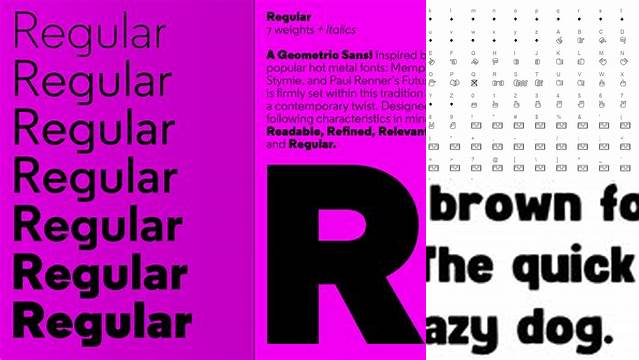
My Font Regular: Free Download Guide
Hey guys! Ever stumbled upon a font that just screams your name? Yeah, we've all been there. And when that font is the perfect My Font Regular, well, the hunt begins! But finding a reliable and safe place to snag that free download can feel like navigating a digital minefield. Fear not! This guide is your friendly map to finding My Font Regular and getting it onto your system without any headaches.
3. Identifying "My Font Regular"
Sometimes, you see a font in an image or design and think, "That's it! That's My Font Regular!" But how do you figure out what it actually is? Thankfully, there are tools for that! Websites like WhatTheFont! and Font Matcherator let you upload an image, and they'll analyze the font and suggest potential matches. Keep in mind that these tools aren't perfect, especially with stylized or heavily modified fonts, but they can give you a great starting point. You might even discover that My Font Regular is actually a slightly different font with a similar vibe. It's all part of the fun!
6. Exploring Font Alternatives
Let's say you can't find My Font Regular available for free download with the license you need. What then? Don't despair! There are tons of amazing font alternatives out there. Websites like FontPair can help you find fonts that pair well with your desired style. You might discover a font that's even better than My Font Regular! Plus, exploring different fonts can help you develop your own unique design aesthetic. So, keep an open mind and be willing to experiment.
7. The Allure of Regular Fonts
Why are regular fonts like My Font Regular so popular anyway? Well, they're the workhorses of the typography world! They're versatile, legible, and suitable for a wide range of applications, from body text to headlines. Regular fonts provide a solid foundation for your design, allowing you to add visual interest with other elements like color, images, and layout. Think of My Font Regular as the reliable friend you can always count on to make your design look its best.
8. Using My Font Regular in Web Design
If you're a web designer, you'll be happy to know that My Font Regular can be easily integrated into your website using CSS. You can either host the font files yourself or use a service like Google Fonts to load the font from their servers. Using Google Fonts is generally recommended, as it's faster and more efficient. Just add the appropriate CSS code to your website, and My Font Regular will be displayed beautifully on all your pages. Just remember to consider web font optimization to ensure your website loads quickly.
9. My Font Regular for Print Projects
My Font Regular isn't just for digital designs! It also works great for print projects like brochures, flyers, and business cards. When using My Font Regular for print, make sure the font files are properly embedded in your document to avoid any font substitution issues when printing. Also, be mindful of the font size and line height to ensure optimal readability. A well-chosen regular font can make all the difference in the visual impact of your printed materials.
30. The Evolution of Typefaces
The history of typefaces is a fascinating journey. From the early days of movable type to the digital fonts of today, typefaces have evolved significantly. Each era has produced its own unique styles and innovations. Understanding the history of typefaces can give you a deeper appreciation for the art of typography and help you make more informed font choices.